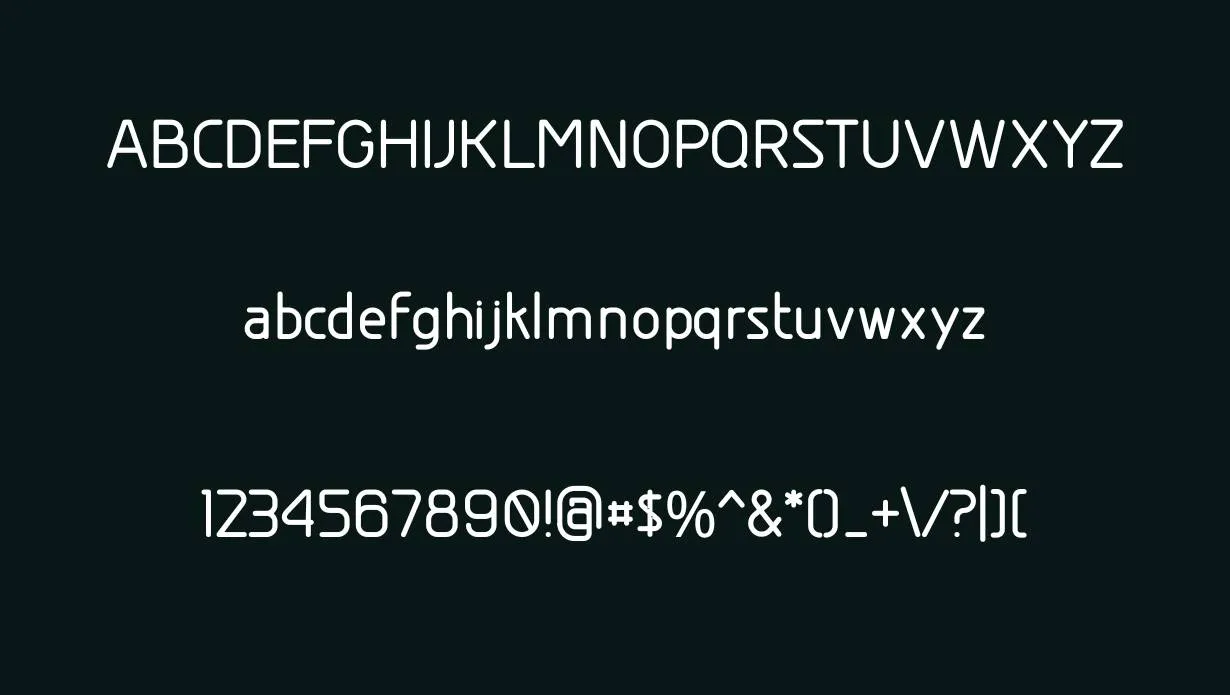
Greyscale Basic Font is known for its minimalist and modern design, often chosen for editorial design, websites, and documents.
Greyscale Basic Font Family
| Name | Greyscale Basic Font |
| Designer | GreyscaleNet |
Its straightforward lines and contemporary style make it a practical choice for conveying clarity and professionalism in your projects.